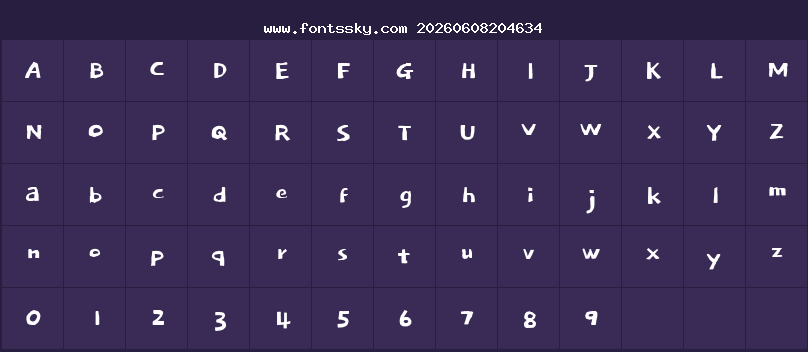
독도 Preview
• Font Name: 독도
• Font ID: FONTRIX; 독도
• Full Font Name: 독도 Regular
• Version: Version 2.00
• PostScript Name: 독도-Regular
• Character Count: 2599
• Designer: FONTRIX
• Manufacturer: FONTRIX
About 독도.ttf
독도.ttf is a modern, elegant sans-serif font designed for ultimate readability and visual harmony. Perfect for branding, headlines, web design, and print materials.